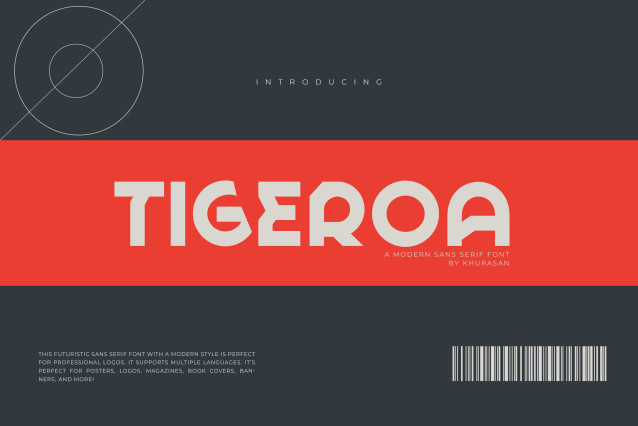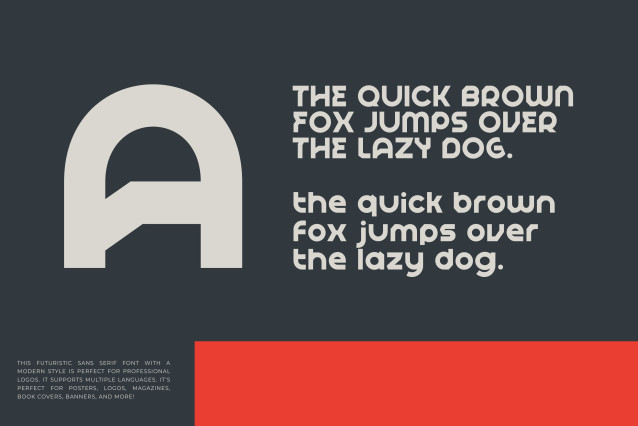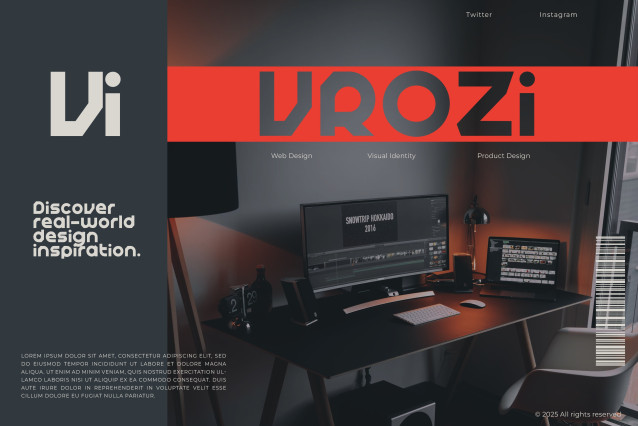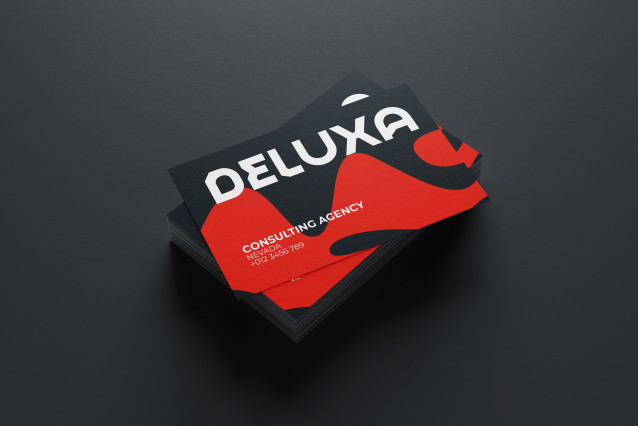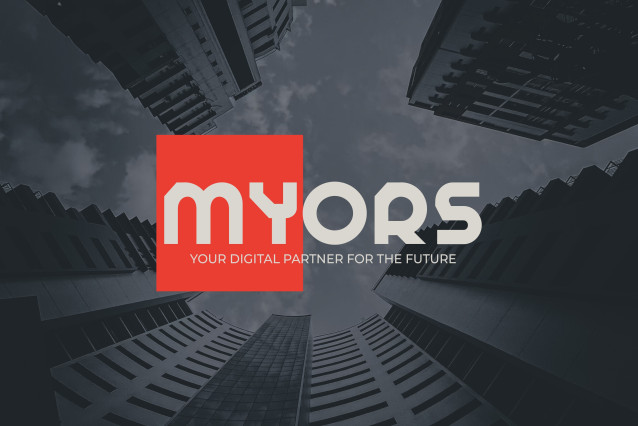
Tigeroa Font
Tigeroa is a clean and modern sans-serif font. The smooth and light execution makes this font look sleek and elegant which is perfect for futuristic branding designs. It can easily be matched to an incredibly large set of projects, so add it to your creative ideas and notice how it makes them stand out.
It’s perfect for posters, logos, magazines, book covers, banners, and more! Get this font and use it to create the best designs!